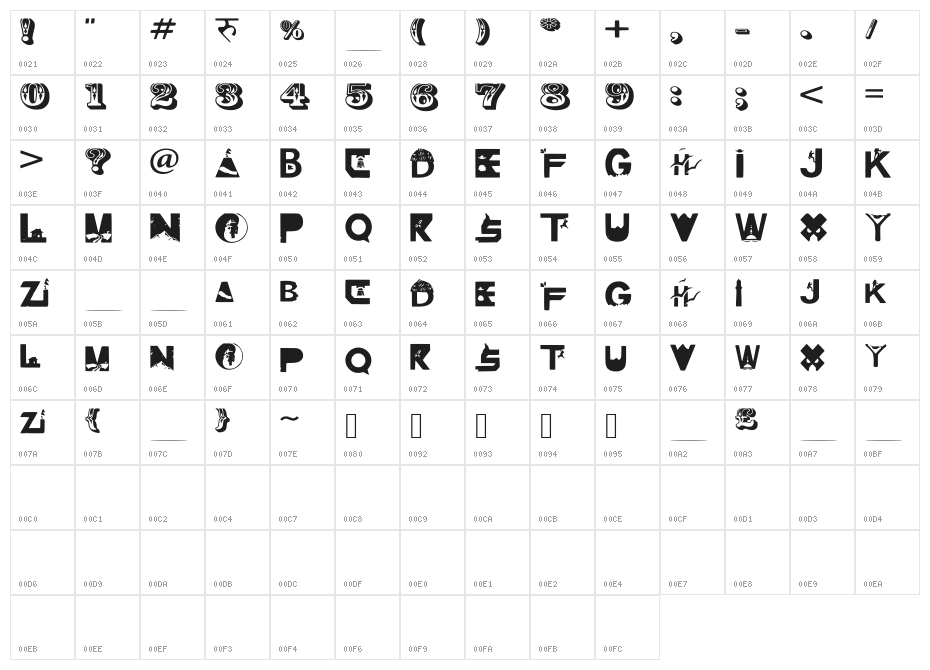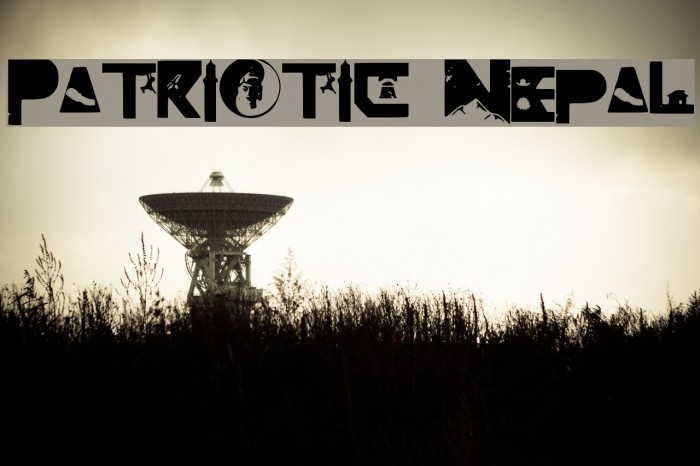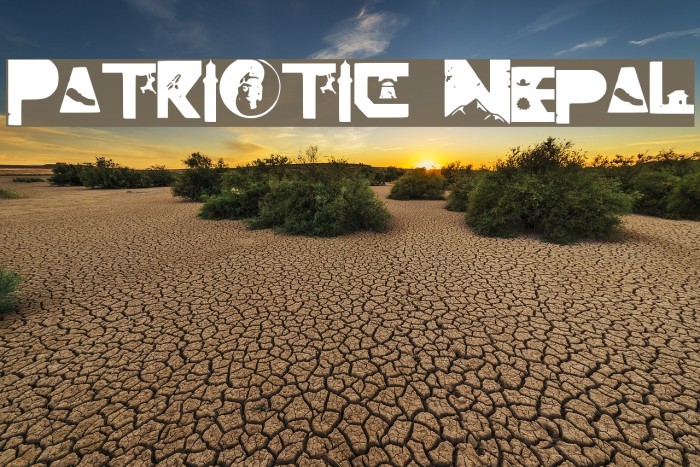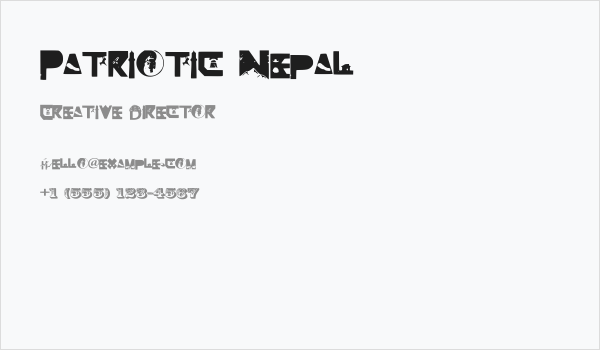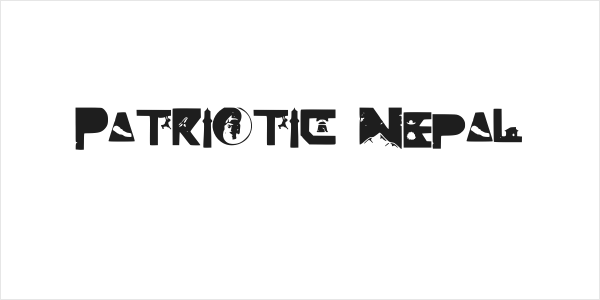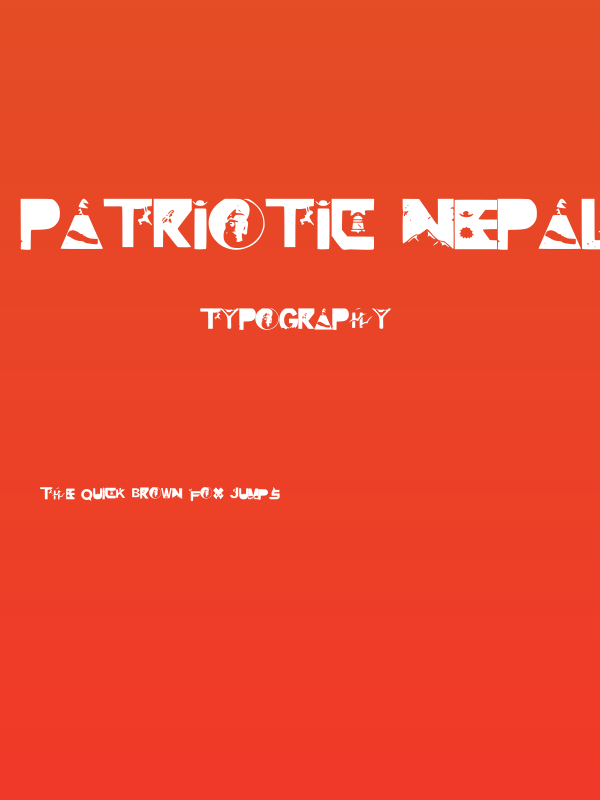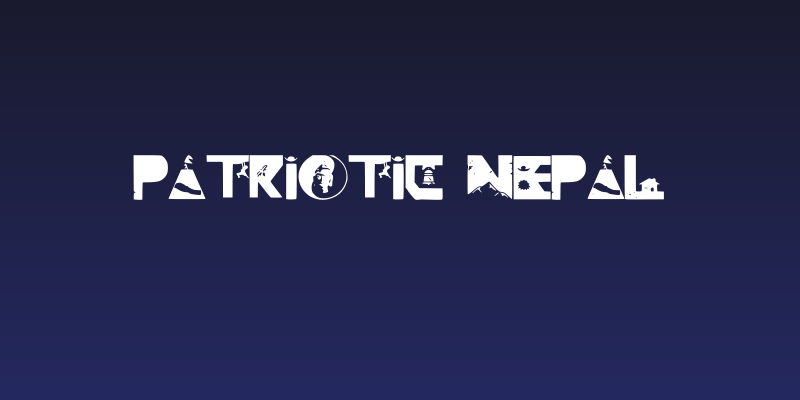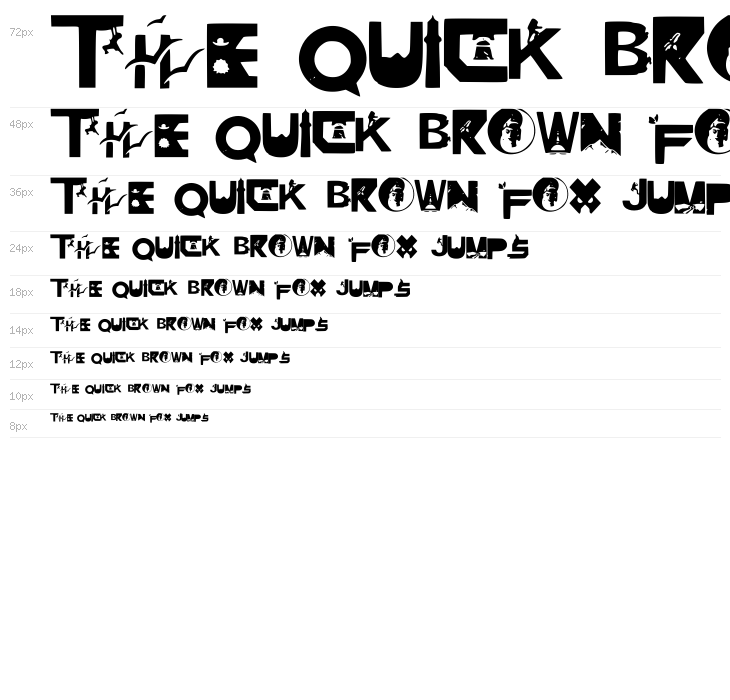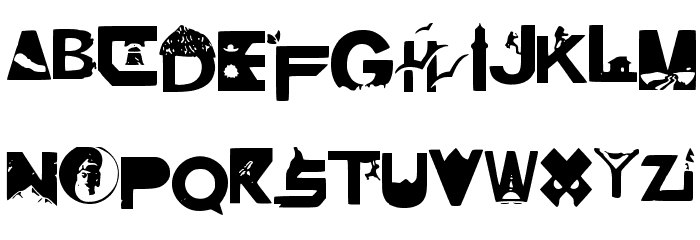
Patriotic Nepal Font
Patriotic Nepal Description
This font features a bold and decorative style, incorporating elements of Nepalese culture and landmarks within each character. The uppercase letters are designed with intricate details, showcasing silhouettes of mountains, temples, and other iconic symbols. The numbers and special characters maintain this thematic approach, offering a cohesive and visually striking appearance. The font's unique design makes it ideal for projects that require a cultural or thematic emphasis, particularly those related to Nepal or Himalayan themes.
| Proposed Projects | Ideal for cultural posters, travel brochures, event invitations, and themed merchandise related to Nepal. |